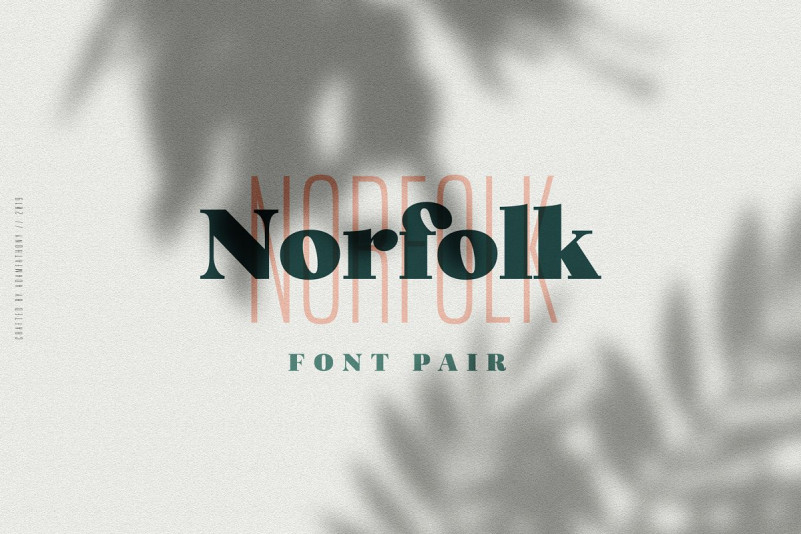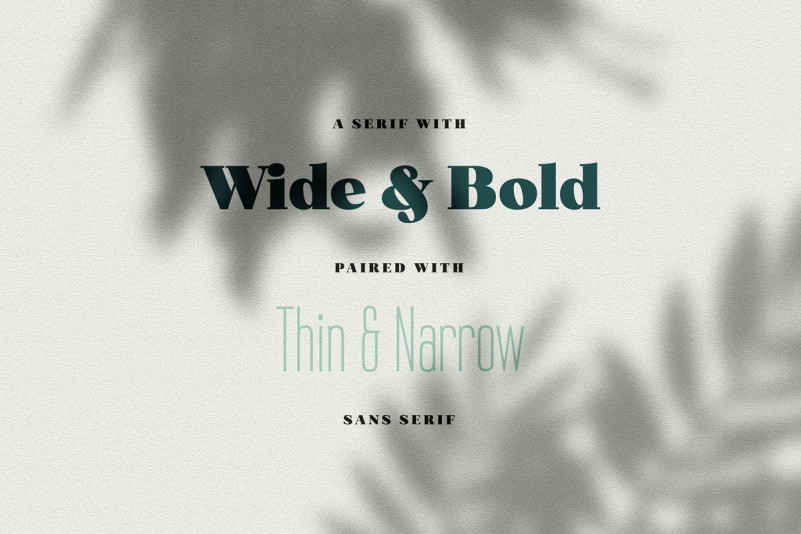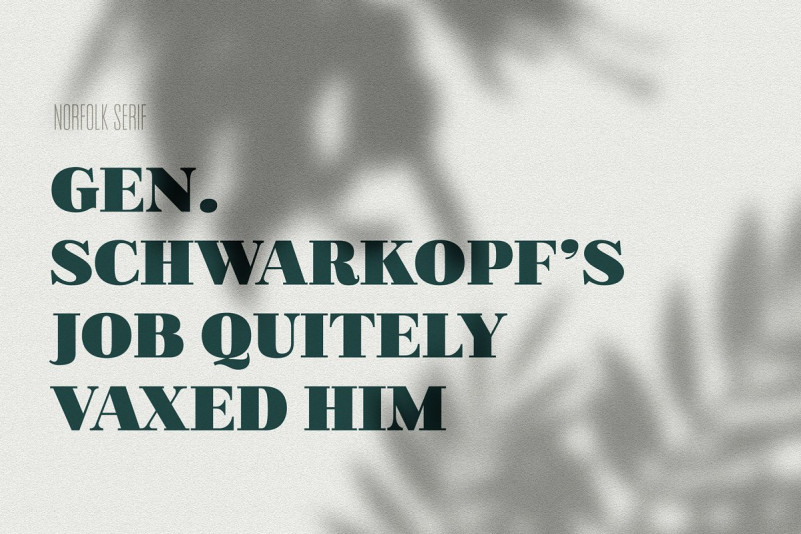
Norfolk Font
Norfolk are inspired from a something simple, elegant, usable and versatile. So I’ve made as simple as possible on the fonts. Made it with very careful to get the clean looking fonts. Since the characteristic of Norfolk are simple, so I decide to not include the alternate characters. The opentype features are available are just only ligatures to avoid the collision of a letter.